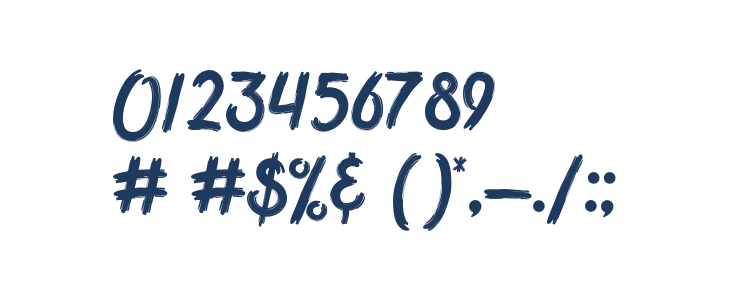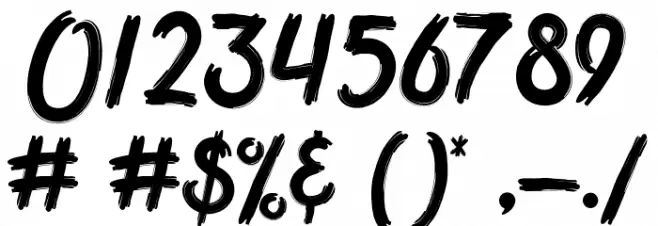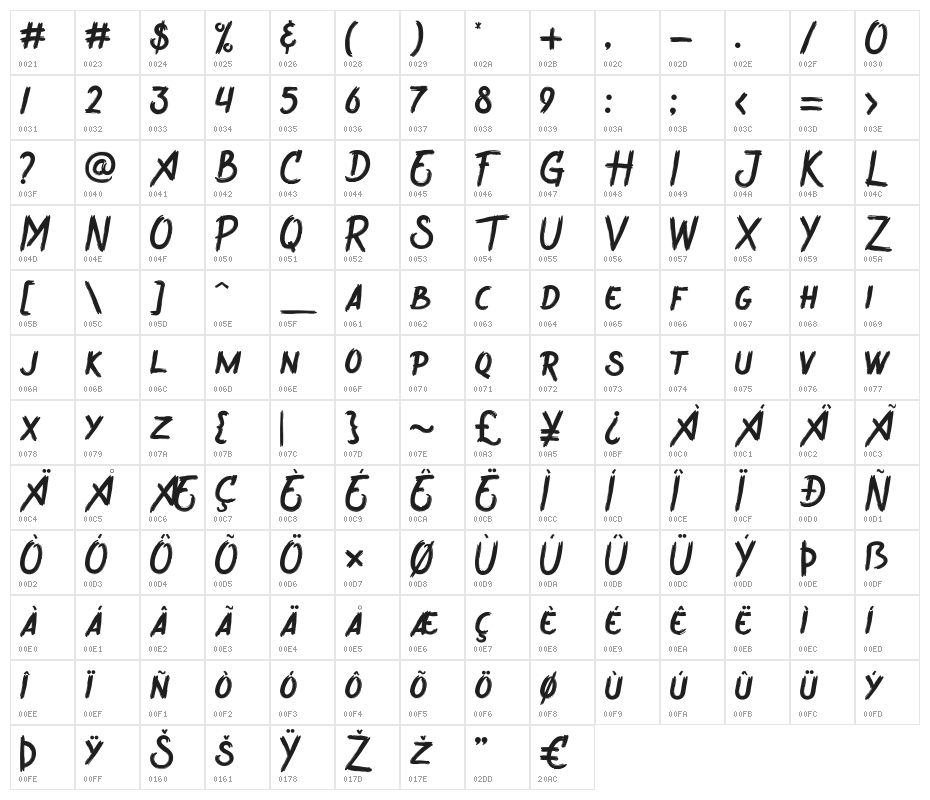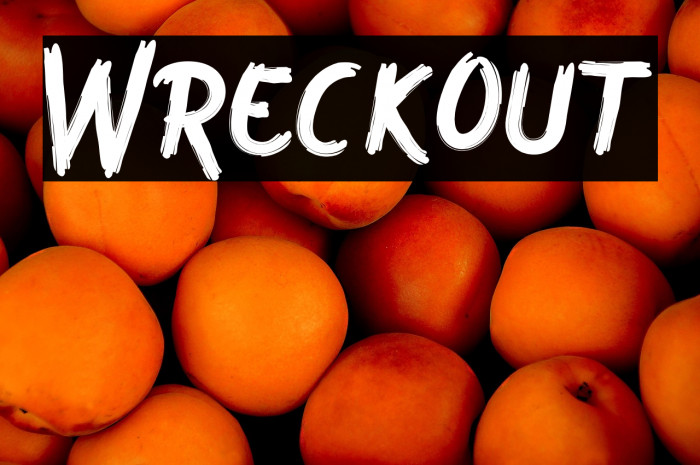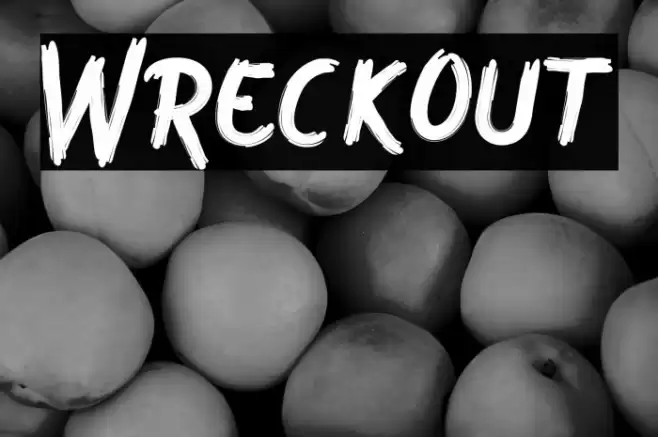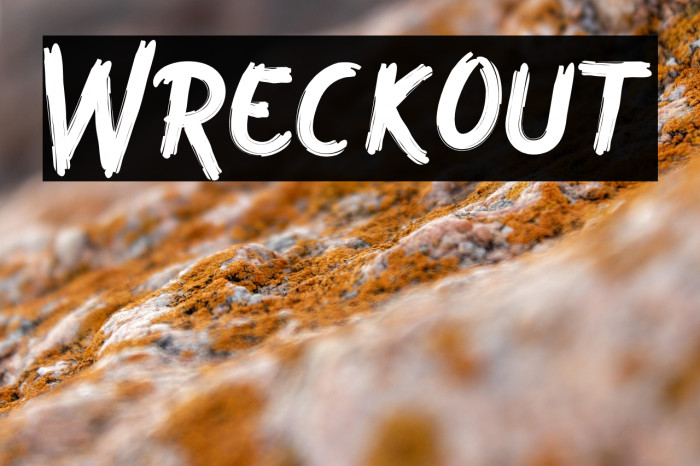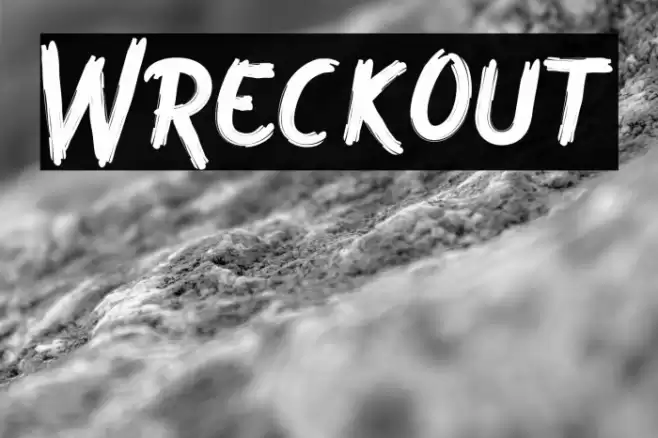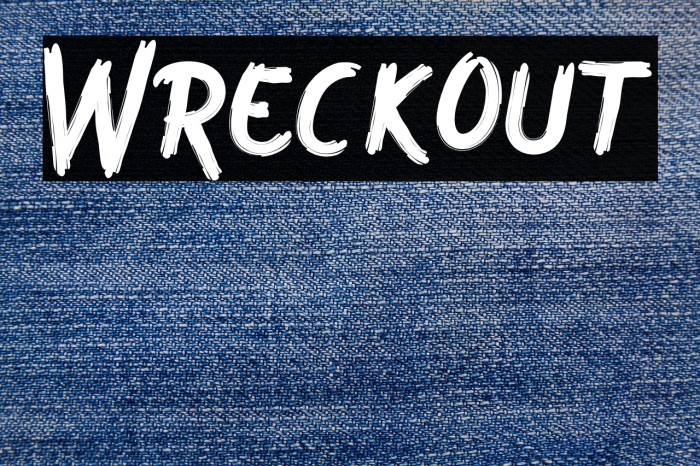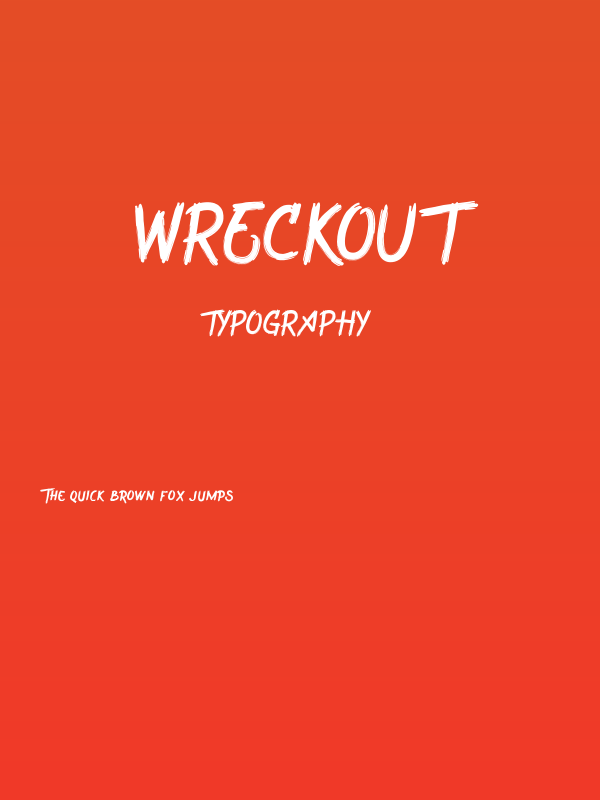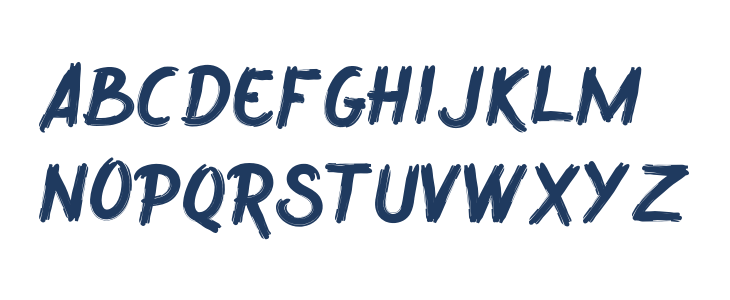
Wreckout Font
Wreckout Description
This font features a bold and dynamic brush script style, characterized by its energetic and expressive strokes. The letters have a hand-painted appearance, with varying thicknesses that create a sense of movement and spontaneity. The uppercase and lowercase letters maintain a consistent style, with rounded edges and a slightly slanted orientation, adding to the casual and informal feel. The numbers and special characters are equally expressive, ensuring a cohesive look across all elements. This font is ideal for projects that require a personal touch or artistic flair.